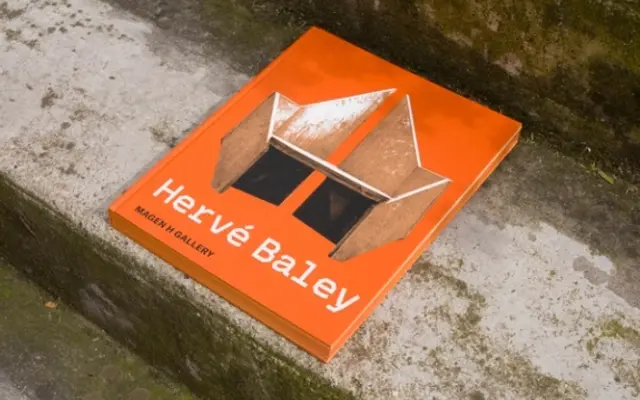
Anto Rounded Mono
b•v-h type · André Baldinger & Toan Vu-Huu · 2022
A monospaced sub-family of the Anto Rounded collection, designed by André Baldinger and Toan Vu-Huu, with rounded terminals and geometric proportions rooted in early grotesque references.
Originally developed from a 2017 visual identity proposal for Bétonsalon in Paris, the Anto Rounded Mono shares the same skeleton as the broader Anto family but applies fixed-width spacing. Its rounded terminals give it a softer character than angular geometric monospaced faces, and its 801 glyphs per style cover an extensive range of Latin languages. OpenType features include multiple figure styles, small capitals and stylistic alternates for characters such as g, l and the ampersand.
A monospaced variant of a geometric sans-serif family, with rounded terminals and proportions influenced by early grotesque designs. Classified as mono due to its fixed-width construction and its position as a distinct sub-family within the Anto Rounded collection.